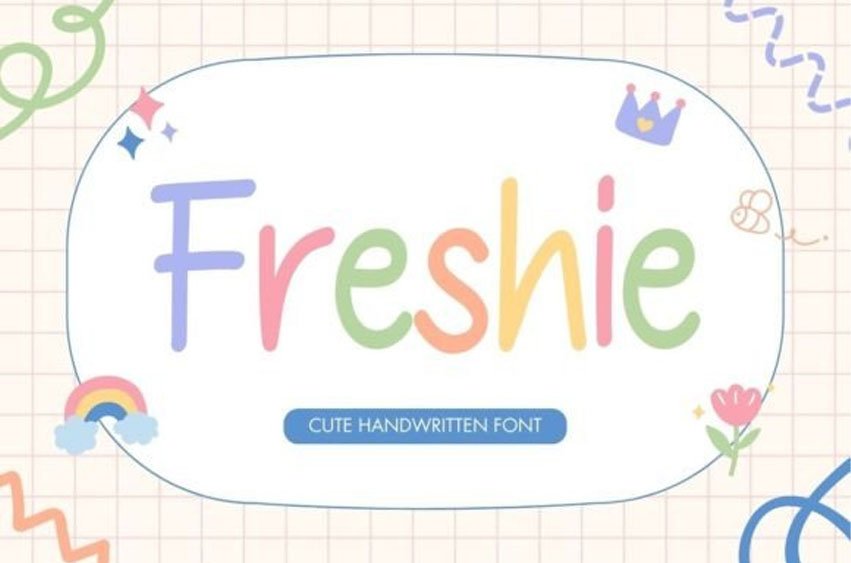
Freshie Font captures the essence of modern elegance with clean lines and a fresh, uncomplicated style. Each letter is a testament to simplicity at its best.
Enjoy the perfect balance of form and function. “Freshie” not only looks great but also ensures optimal readability, making it a reliable choice for all your written endeavors.
From planners and journals to social media graphics and branding, “Freshie” opens the door to endless creative possibilities, allowing you to express yourself with clarity and style.